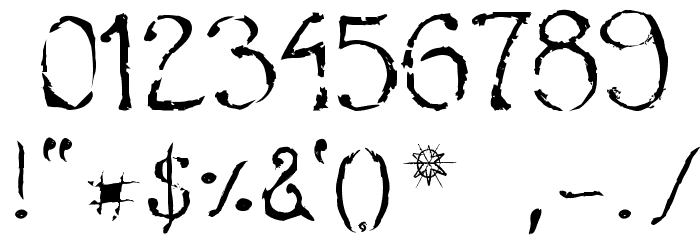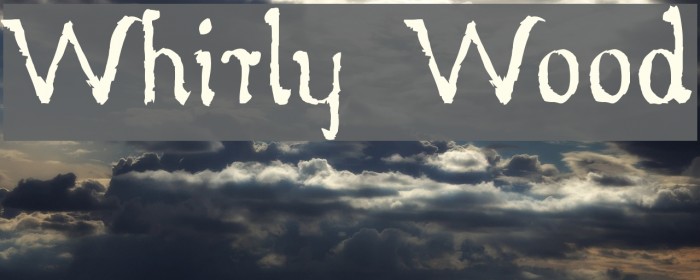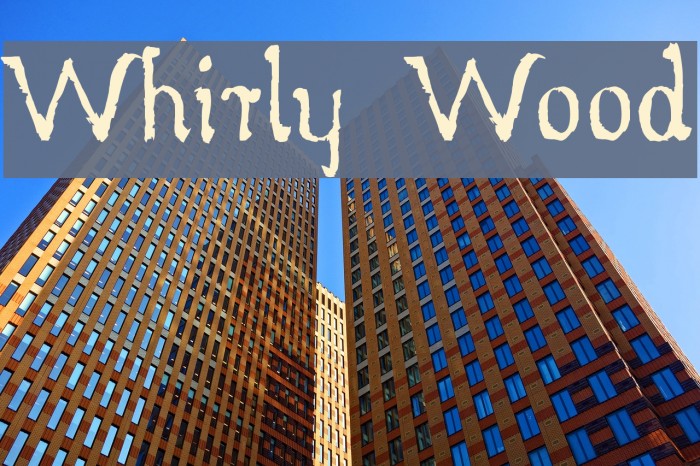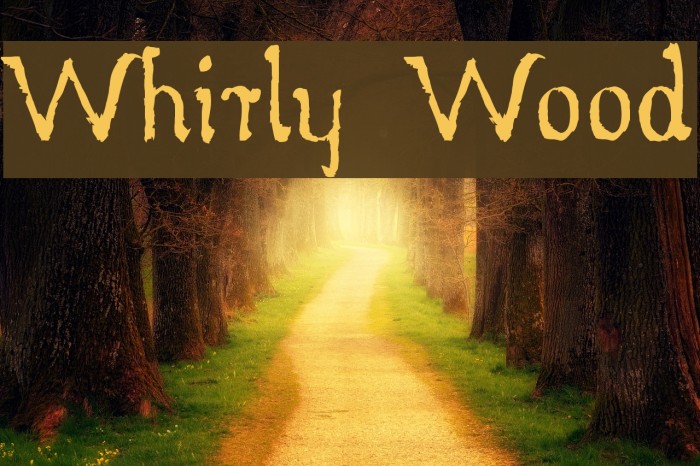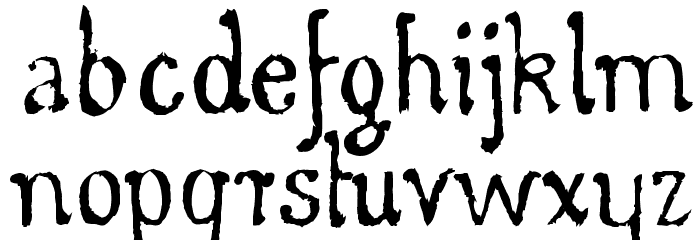
Whirly Wood Font
This font features a unique, distressed style that evokes a sense of rustic charm and hand-crafted artistry. The characters are uneven and irregular, with rough edges and a slightly whimsical appearance. The uppercase letters are bold and commanding, while the lowercase letters maintain a playful yet coherent look. Numbers and special characters follow the same aesthetic, adding to the font's overall cohesion. The font's texture gives it a vintage feel, reminiscent of old woodcuts or hand-drawn lettering, making it ideal for projects that require a touch of nostalgia or a handcrafted look.
A rustic, distressed font with a handcrafted, vintage feel.
• Proposed Projects: Ideal for branding, packaging, posters, and any design requiring a rustic or handcrafted aesthetic.
• Category: Decorative/Display
• Bold: Yes
• Italic: No
• Weight: Bold
• Width: Normal
• Character Spacing: Normal
• Contrast: Medium
• Overall Style: Vintage
• Use Case: Logos, Headlines, Posters